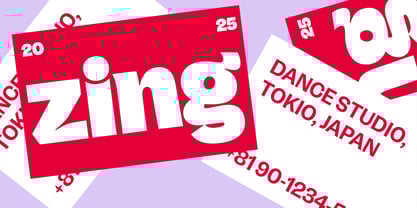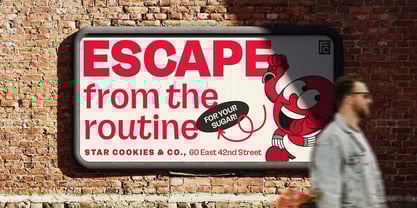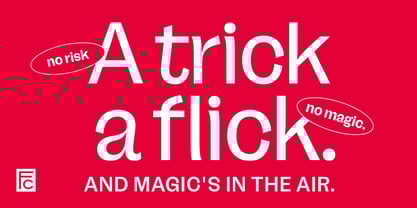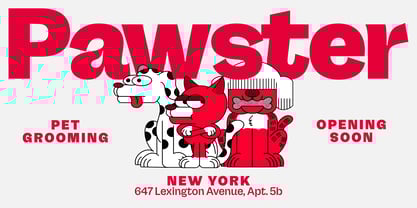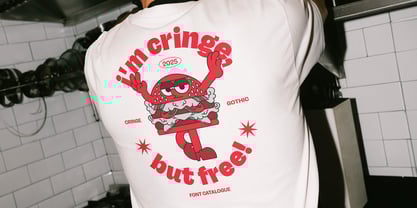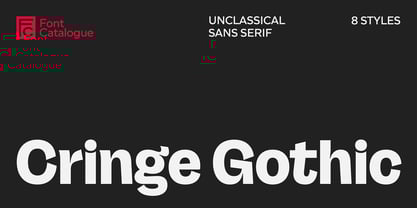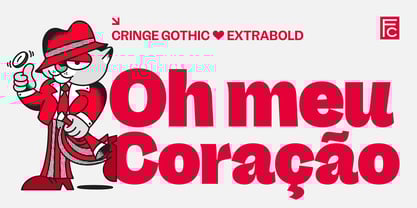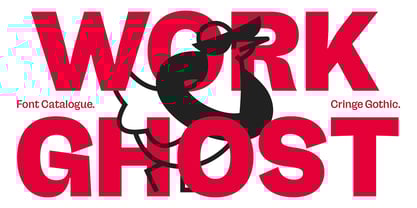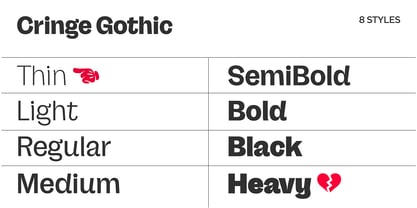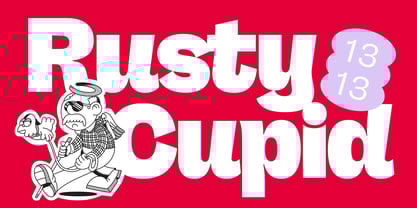
Cringe Gothic
The Cringe Gothic Font Family was designed by Luciano Vergara, Jorge Cisterna, Daniel Hernández, Ale Navarro and published by Font Catalogue. Cringe Gothic contains 8 styles and family package options. More about this family
A grotesk with a wink, not a smirk.
Cringe Gothic doesn’t shy away from discomfort—it leans right into it. With curves that flirt with intentional awkwardness and terminals that challenge typographic logic, this grotesk sans feels like a mistimed smile: uneasy, endearing, and just a bit absurd. But beneath its offbeat surface lies a solid, compact, and surprisingly versatile design.
Created for an era where perfection feels suspicious, Cringe Gothic is made for brands that would rather appear vulnerable than flawless. With eight weights—from Light to Extra Black—it works across headlines that demand presence and design systems in need of a voice that’s playful yet bold.
Its exaggerated forms, wide apertures, and details that feel lifted from a viral meme make it a visual manifesto for the post-cringe aesthetic: a style that embraces the weird, the emotional, and the off-kilter as a new kind of honesty in branding.